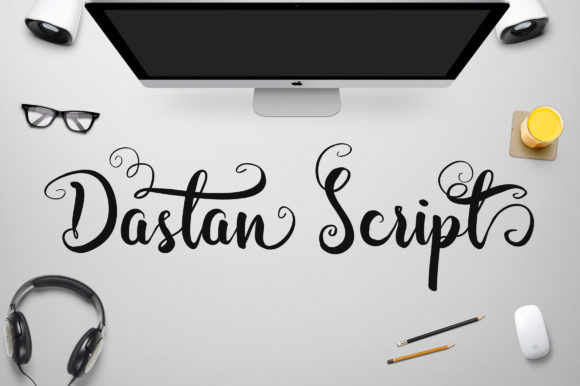
Dastan Script Font
Introducing Dastan Script Font - A Playful Handwritten Masterpiece for Creating Enchanting Designs
Embark on a typographic adventure with Dastan Script Font, a captivating creation by Royaltype that exudes charm and playfulness in every stroke. This delightful script font is meticulously crafted to capture the essence of handwritten beauty, inviting you to add a touch of romance and whimsical flair to your designs. Prepare to be mesmerized by its unique charm that breathes life into your creative projects.
Step into a world of limitless possibilities with Dastan Script Font. Its versatile nature makes it a perfect fit for a wide range of design endeavors, from heartfelt wedding invitations and enchanting posters to eye-catching logos and captivating branding materials. Unleash your imagination and let the free-flowing lines of Dastan Script Font guide you towards extraordinary designs that leave a lasting impression.
With Dastan Script Font, you'll discover a treasure trove of creative opportunities. Embrace its playful spirit to craft heartwarming greeting cards that convey your sincerest sentiments. Add a touch of magic to your social media posts, captivating your audience with visually stunning visuals. Whether you're a seasoned designer or just starting your creative journey, Dastan Script Font empowers you to create designs that resonate with your audience, leaving them enchanted by your artistic vision.
Don't let the ordinary stifle your creativity. Break free from the mundane and embrace the extraordinary with Dastan Script Font. Its charming handwritten style is sure to add a touch of elegance and personality to your designs, making them stand out from the crowd. Let your imagination soar and let Dastan Script Font be your guide as you create stunning visual masterpieces that capture hearts and leave an indelible mark on your audience.